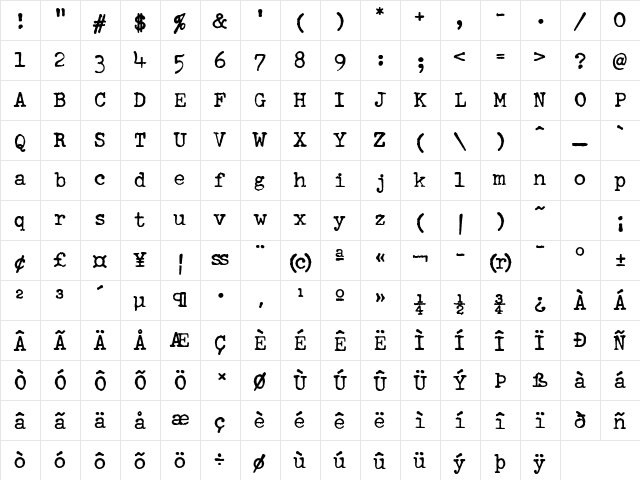
SchmutzICG Cleaned
Design Context for SchmutzICG Typeface
SchmutzICG offers clean, dependable letterforms without strong stylistic allegiance, making it a practical choice for designers who need flexibility.